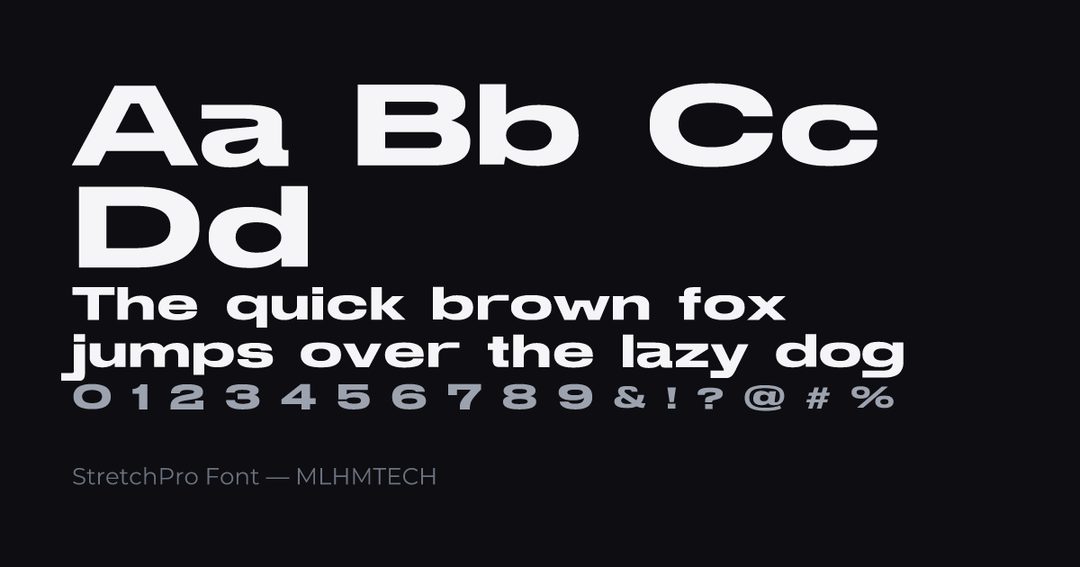
StretchPro Font
StretchPro is a bold, modern display font that adds a strong, geometric presence to any design. Ideal for headlines, posters, and branding.
StretchPro is a handpicked display font that brings a contemporary, geometric style to your projects. Its bold, stretched letterforms are designed to make a statement, perfect for grabbing attention in headlines, posters, and social media graphics. The font's clean lines and modern aesthetic ensure versatility across various design contexts, from branding to editorial layouts. Whether you're working on a logo, a promotional banner, or a YouTube thumbnail, StretchPro adds a professional and dynamic touch. Its unique character shapes set it apart from standard sans-serifs, giving your work a distinctive edge. The font is easy to integrate into your design workflow, and its high legibility ensures readability even at large sizes. Elevate your creative projects with StretchPro and make your text stand out with confidence.